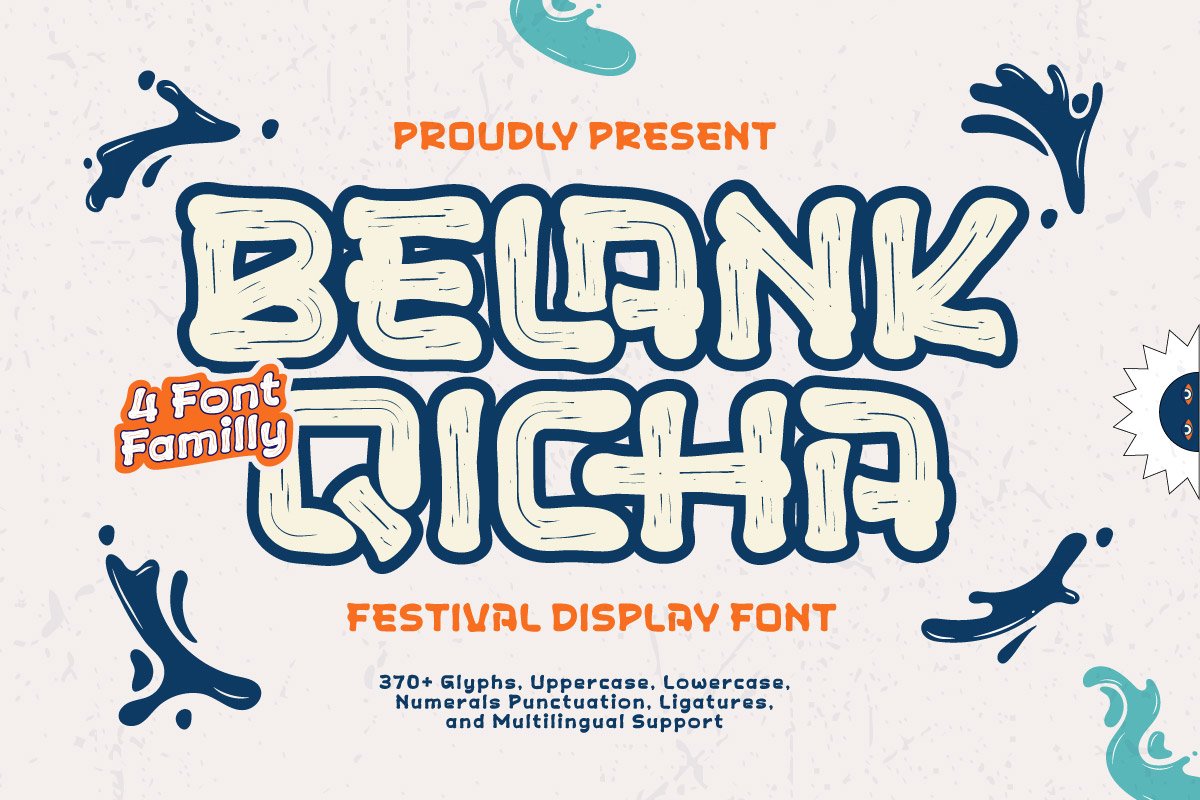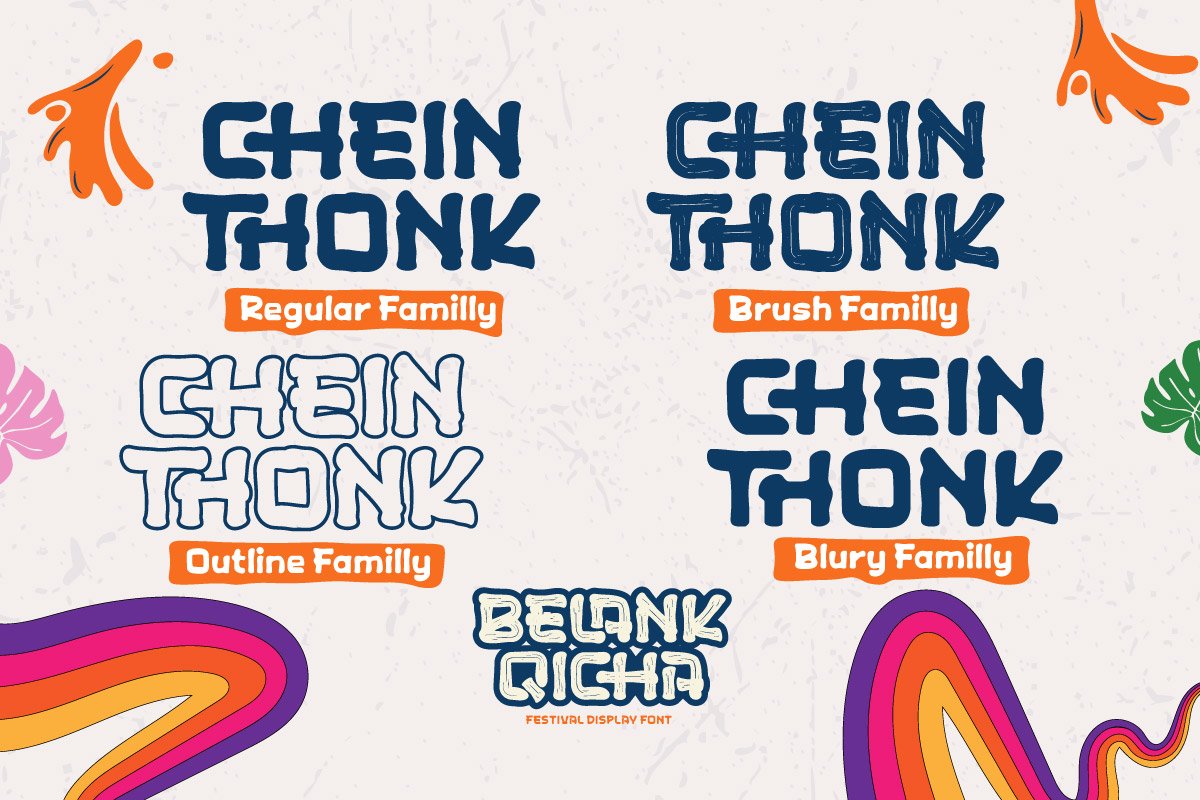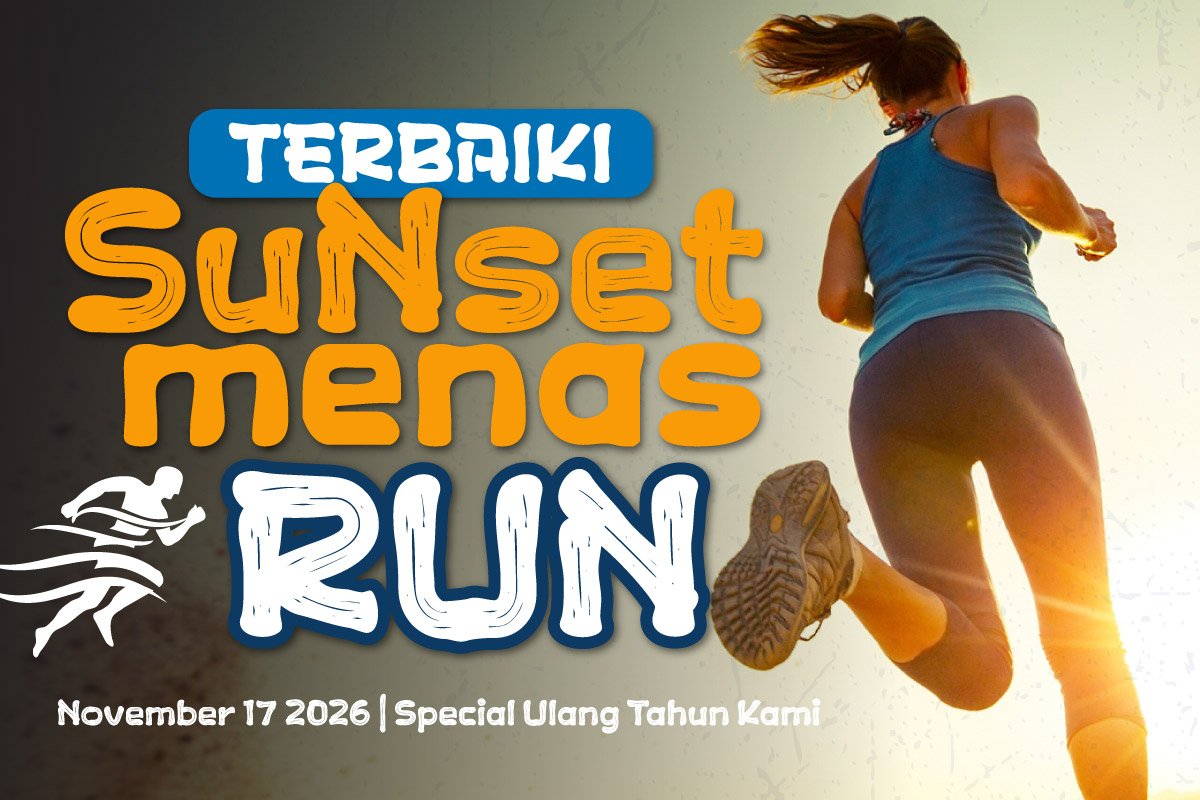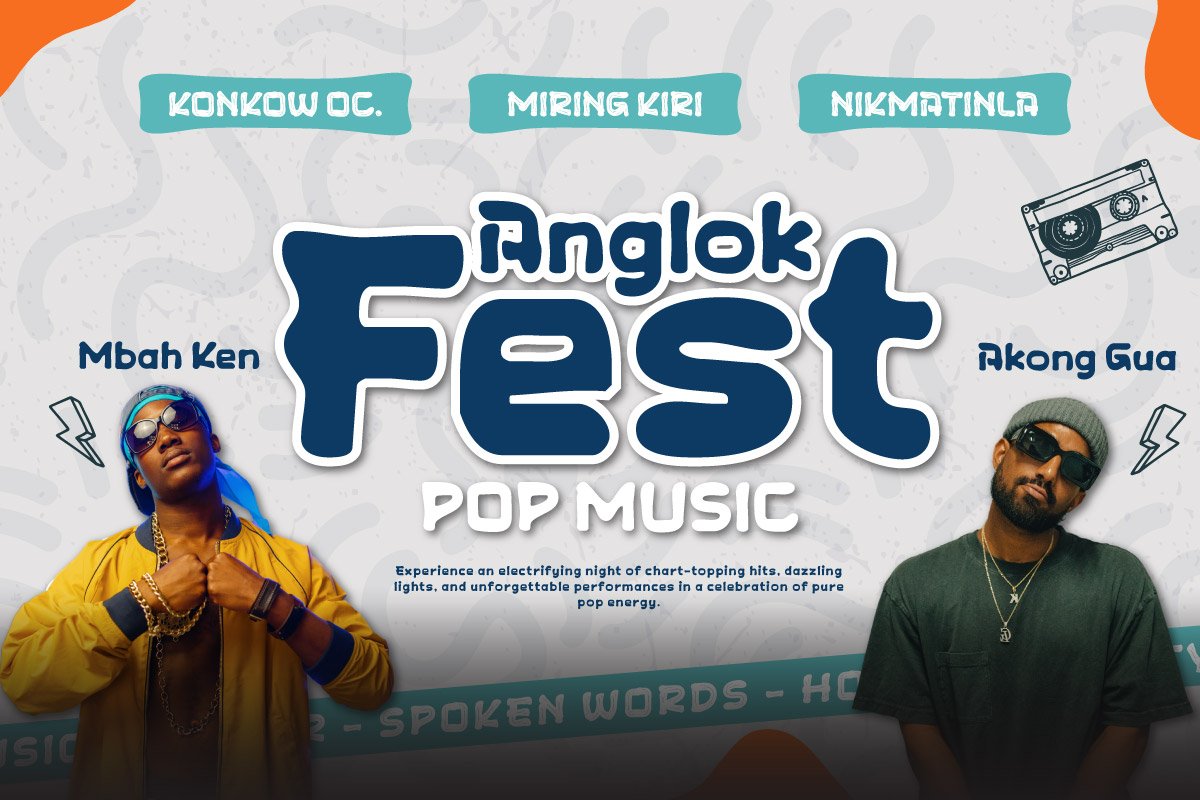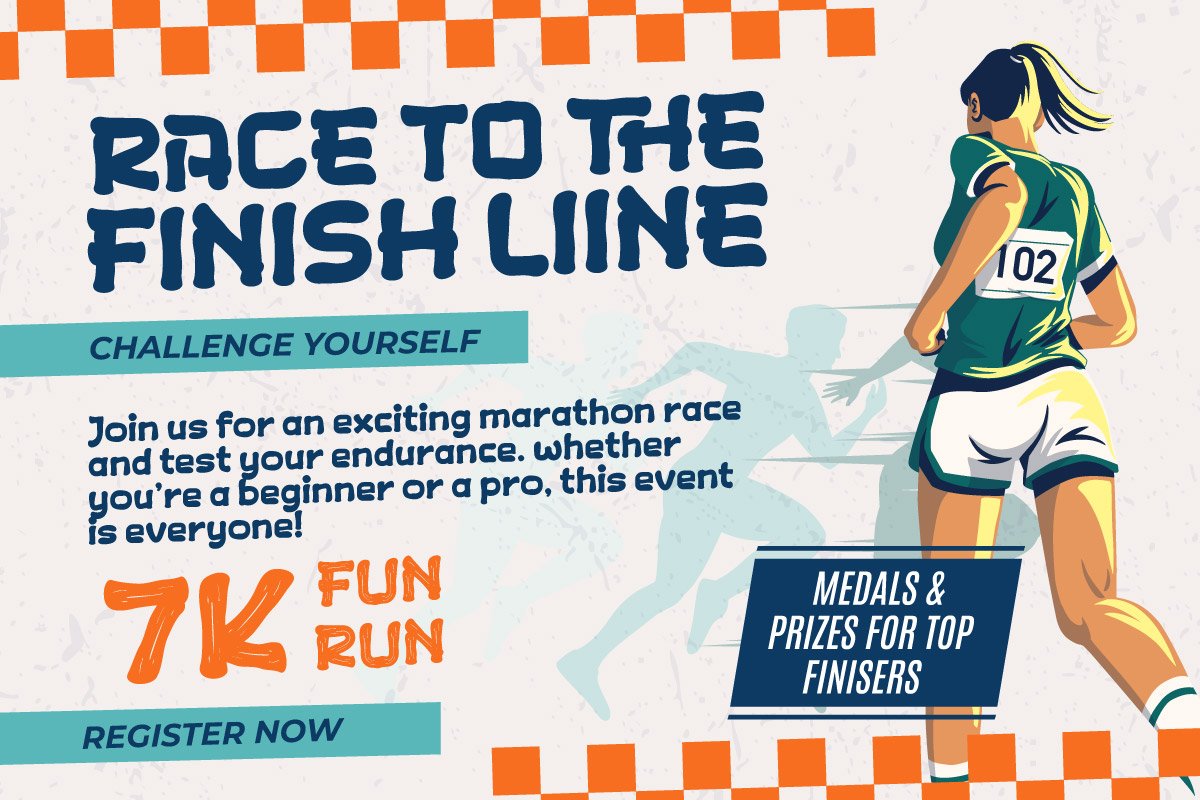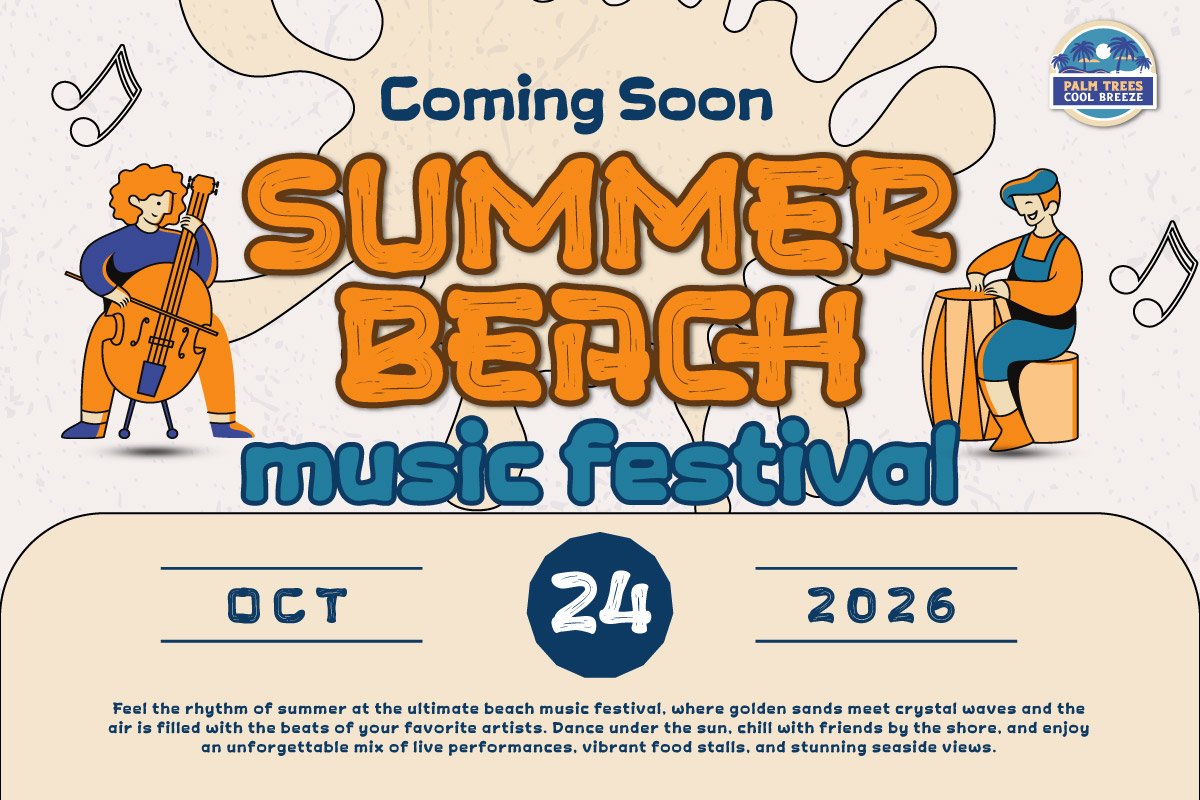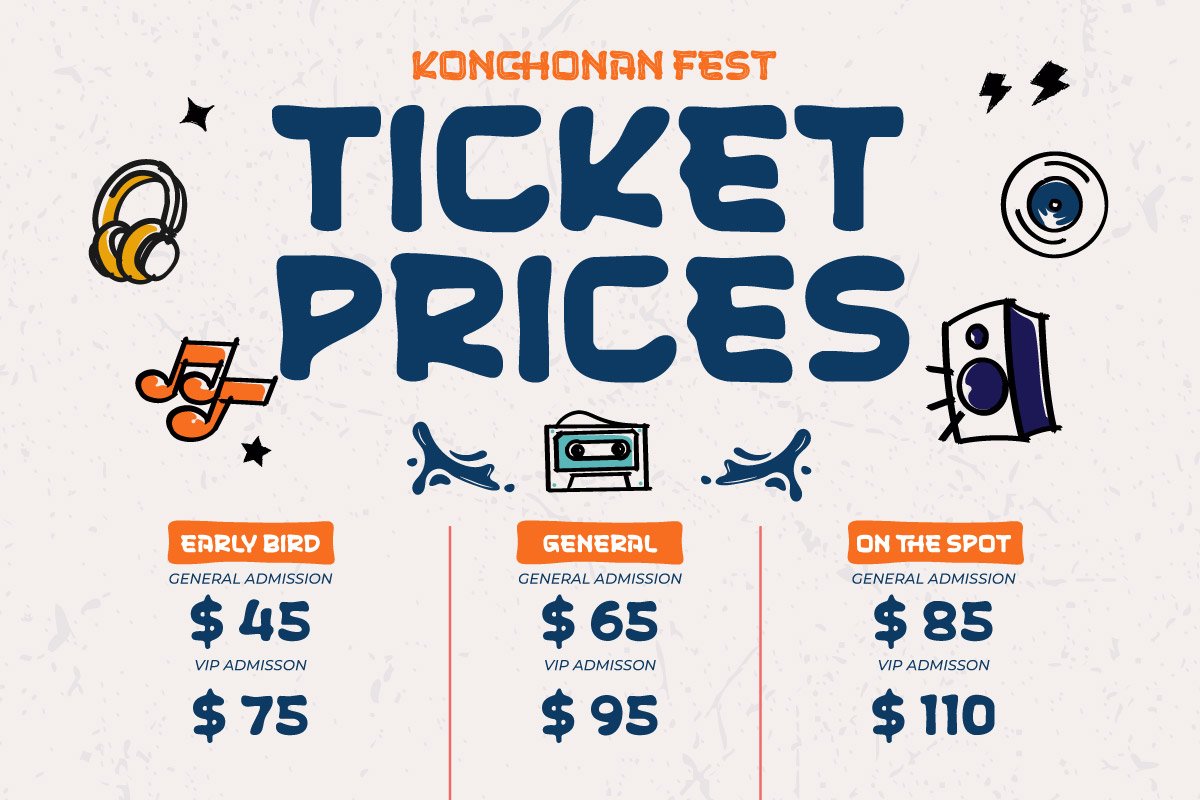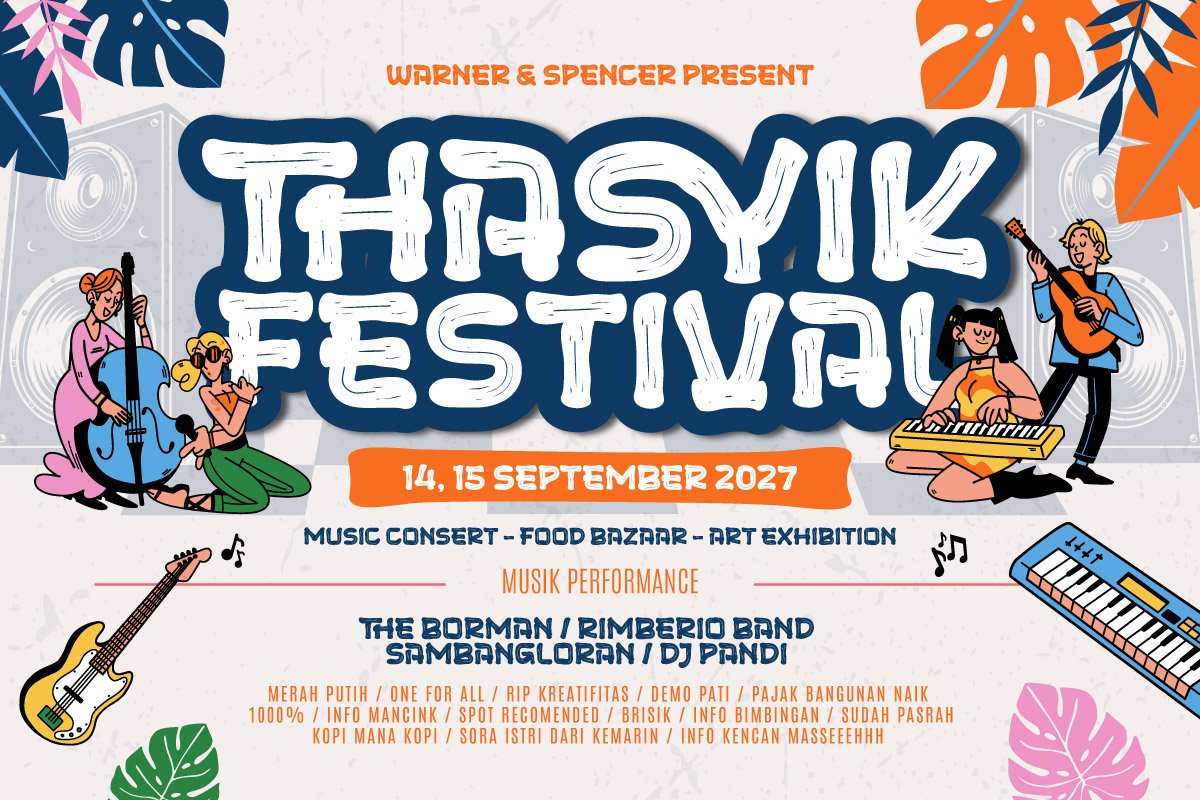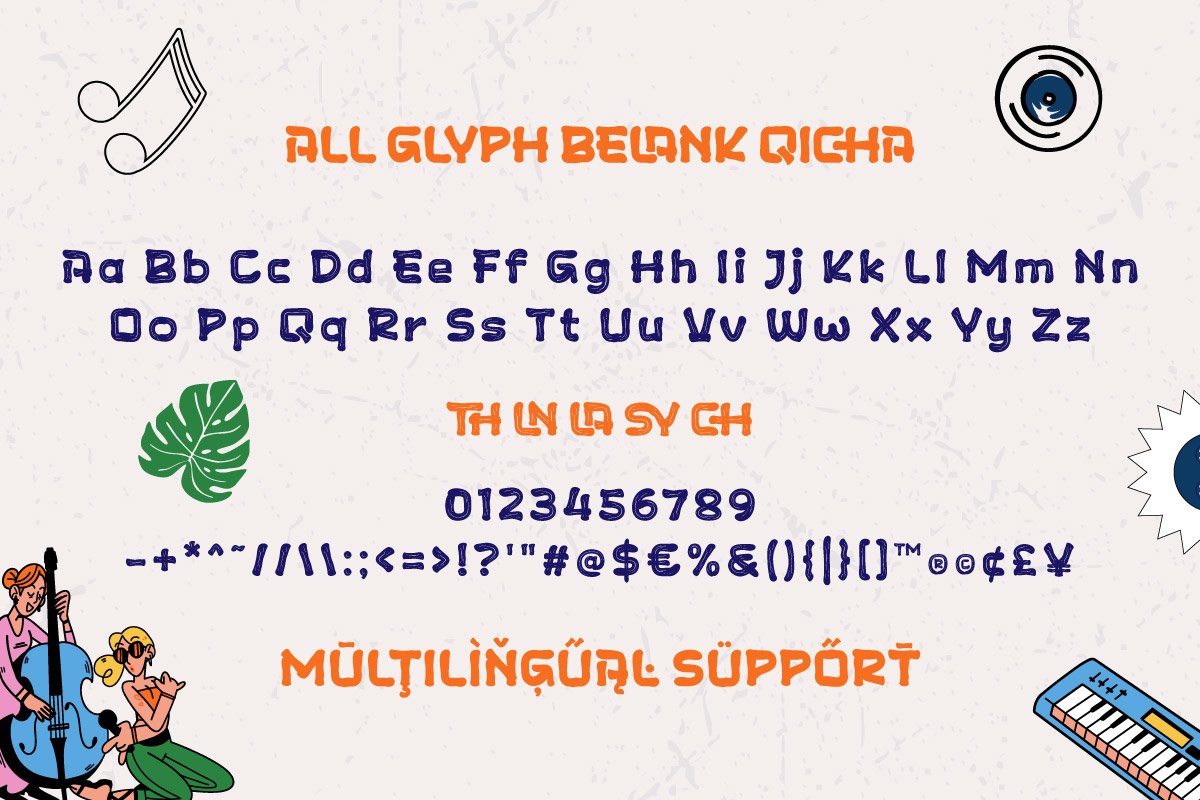
5. Belank Qicha – Festival Display Font
Belank Qicha – Festival Display Font
Belank Qicha is a playful and energetic festival display font designed to bring fun and bold character to your creative projects. Inspired by the lively atmosphere of festivals, this font family comes with 4 unique styles—Regular, Outline, Brush, and Blury—giving you versatile options for eye-catching designs.
With 370+ glyphs, including uppercase, lowercase, numerals, punctuation, ligatures, and multilingual support, Belank Qicha is perfect for poster designs, event flyers, packaging, music covers, branding, and social media graphics. Its bold yet friendly personality makes it ideal for projects that need a vibrant and standout look.
Make your design festive, unique, and unforgettable with Belank Qicha!